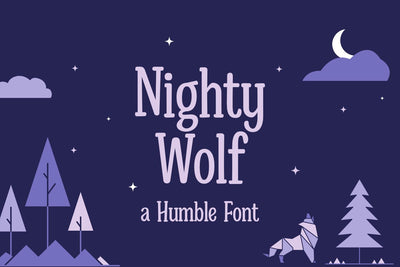
Nighty Wolf - a Humble Font
Nighty Wolf is a humble stylish display font with a contemporary atmosphere and impeccable form, inspired by a timeless classic touch. Chic, balanced and varied, this font was designed to enhance the beauty of your projects.